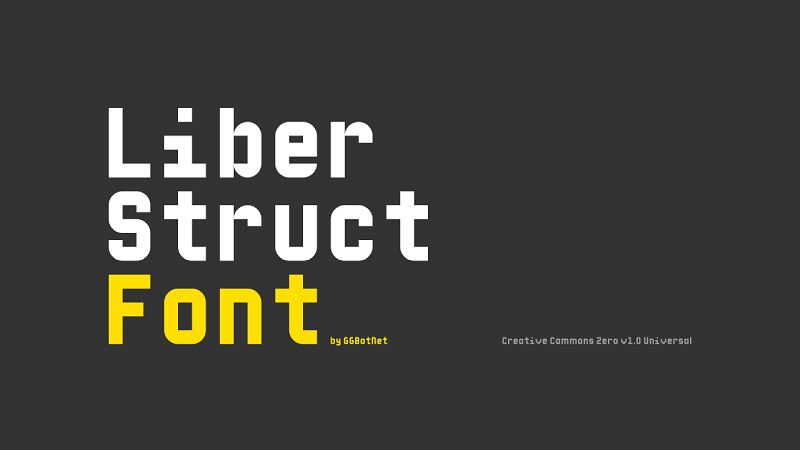
Liber Struct Regular
Liber Struct font by GGBotNet is a distinct display square typeface that has industrial, geometric, and structured design influences. The thick letter characters are detailed with some basic elements that break the outline boundaries and some unique approaches in ends treatment. With a mechanical feel, robust appearance minimalist design characterized it.
“Liber Struct” was built with FontStruct